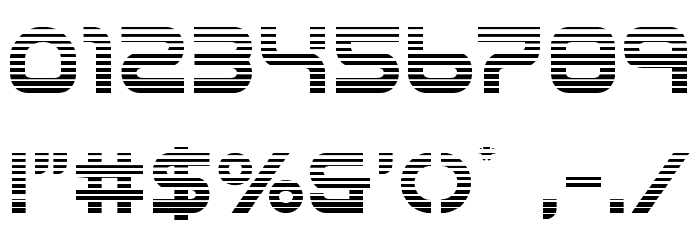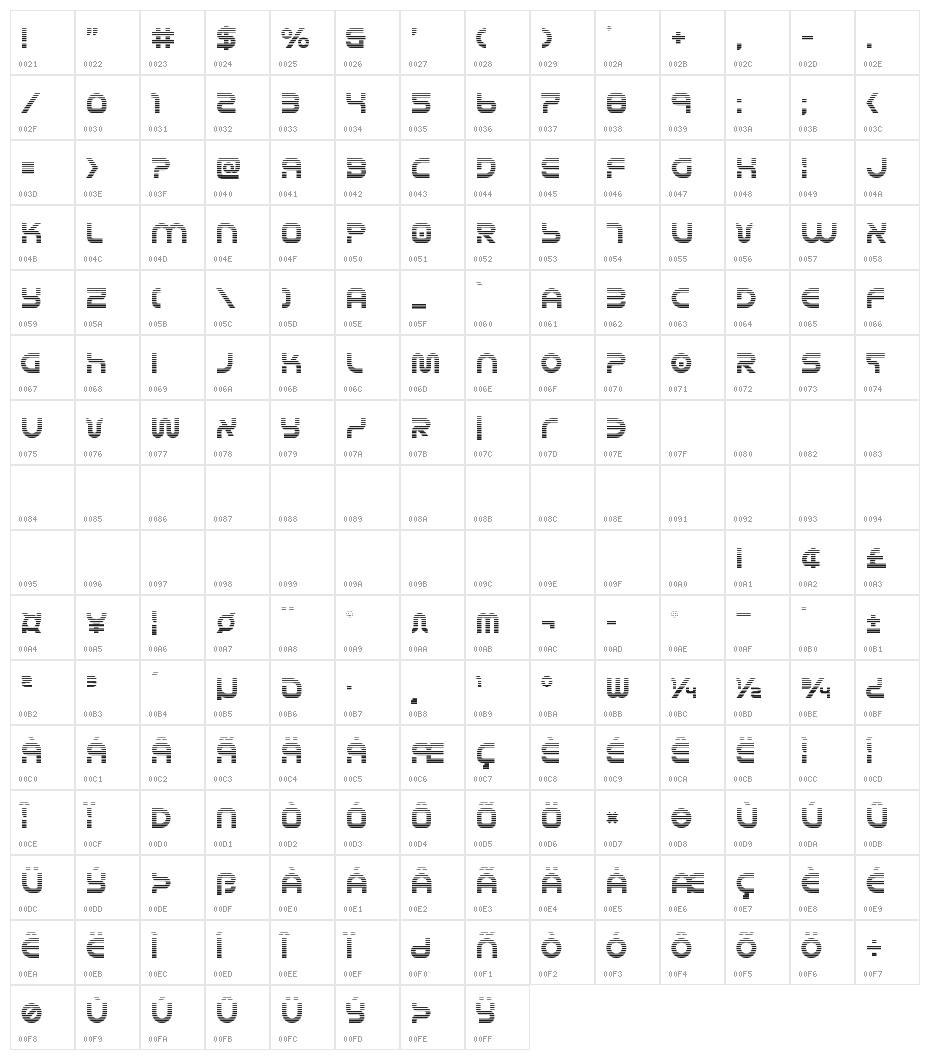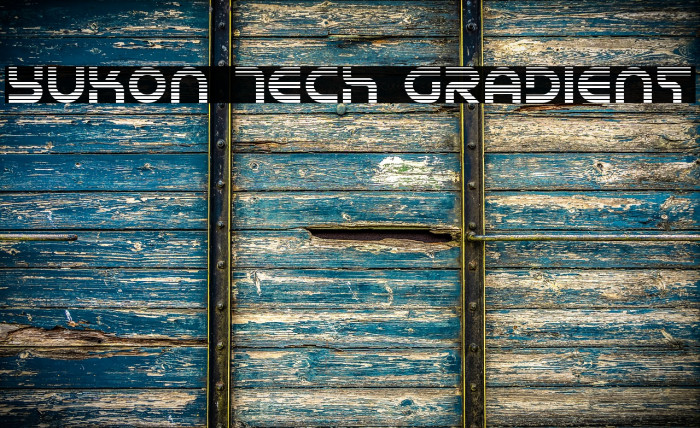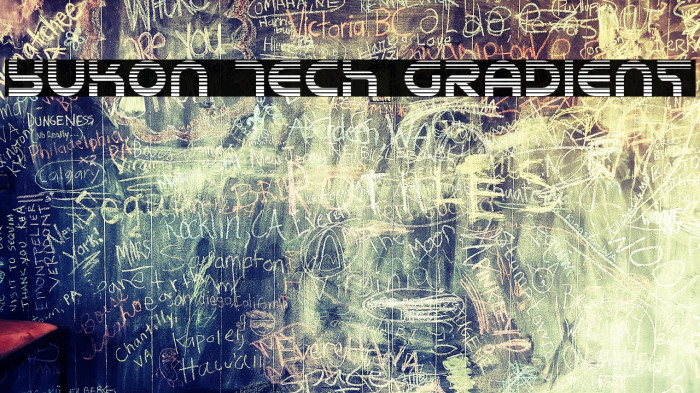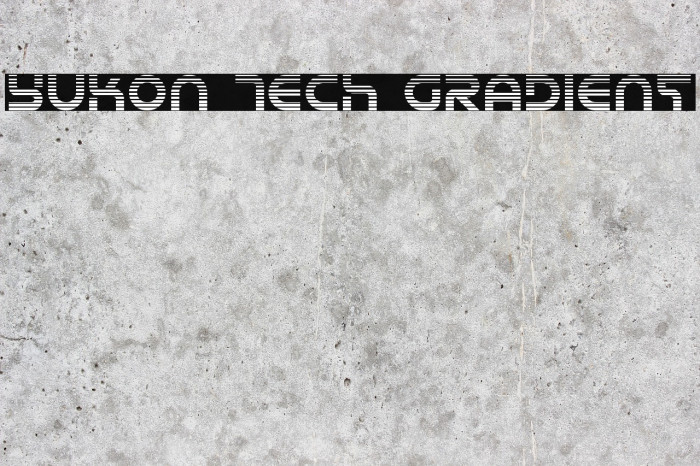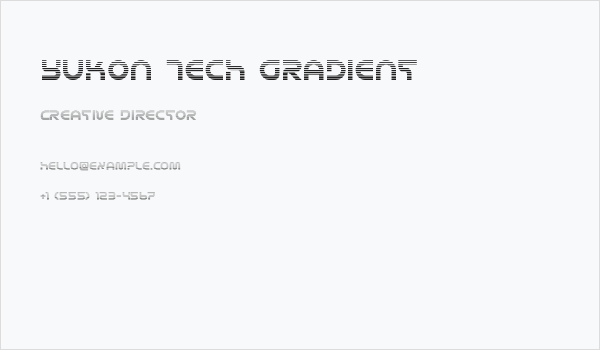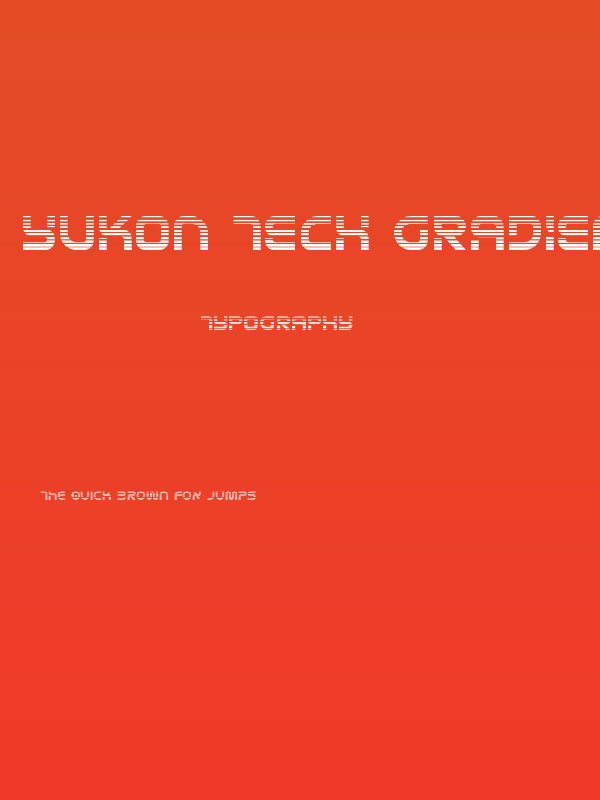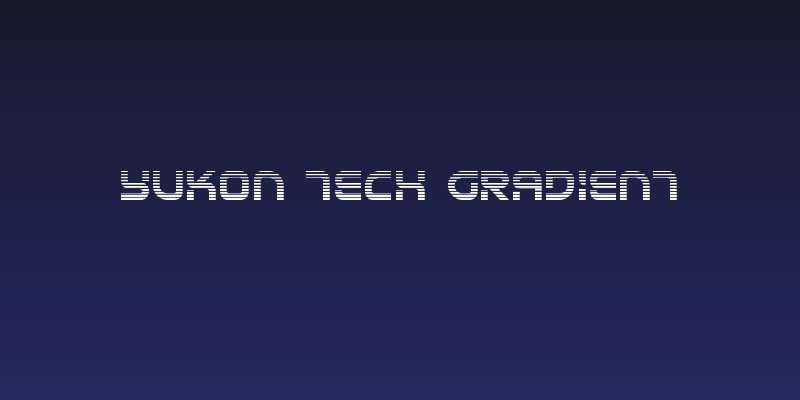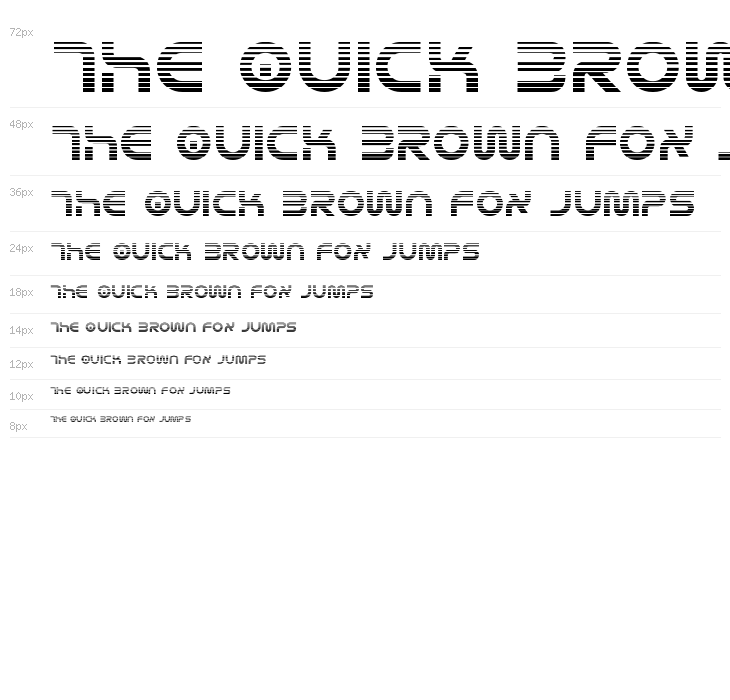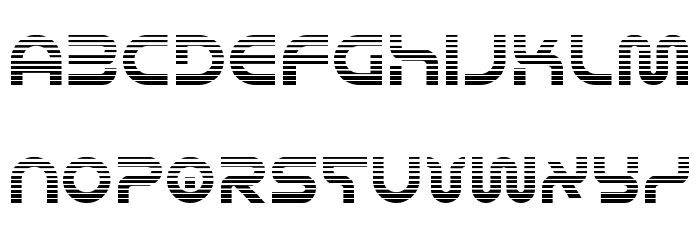
Yukon Tech Gradient Font
Yukon Tech Gradient Description
This font features a futuristic and technological design, characterized by its unique striped pattern within each character. The letters are bold and geometric, with a consistent horizontal line motif that gives it a digital, high-tech appearance. The uppercase and lowercase letters maintain a uniform style, enhancing the font's cohesive look. The numerals and special characters follow the same design principles, ensuring a seamless integration across all glyphs. This font's distinct style makes it ideal for projects that require a modern and innovative touch.
| Proposed Projects | Ideal for tech-related branding, digital media, video game interfaces, and futuristic-themed posters. |